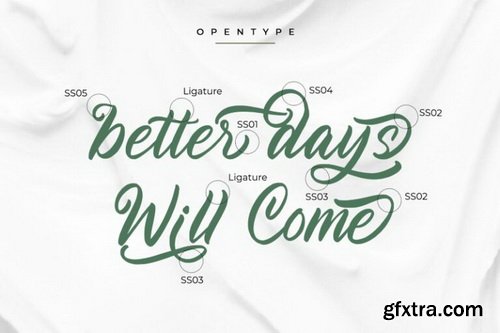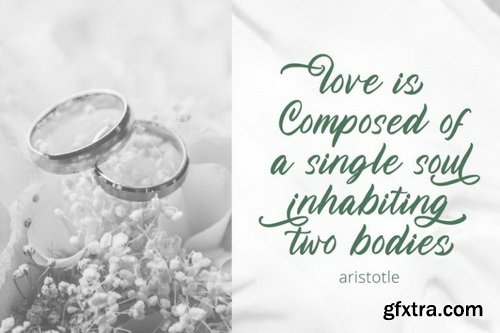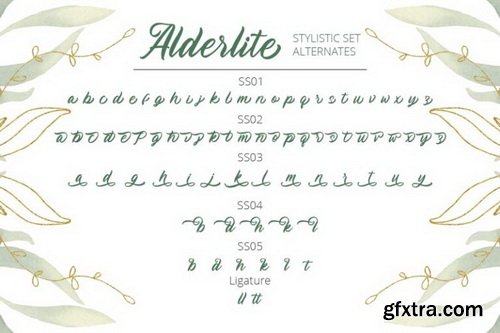
Myfonts - Alderlite Font
Alderlite is a elegant brush font. With a classy style, it brings a beautiful and chic typeface. Alderlite is best used for branding logotype, and quotes.